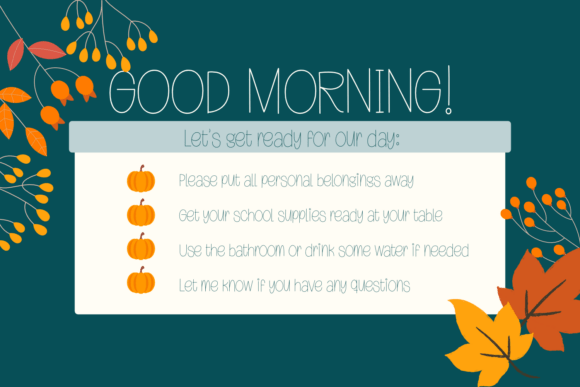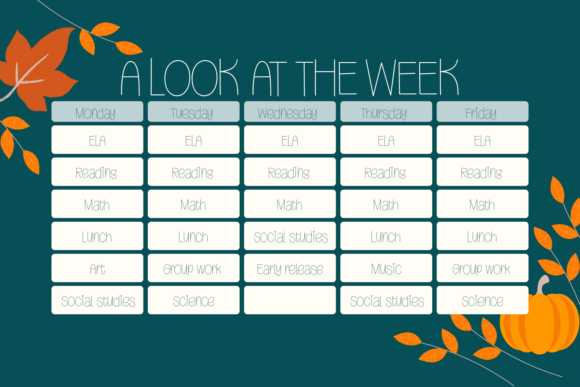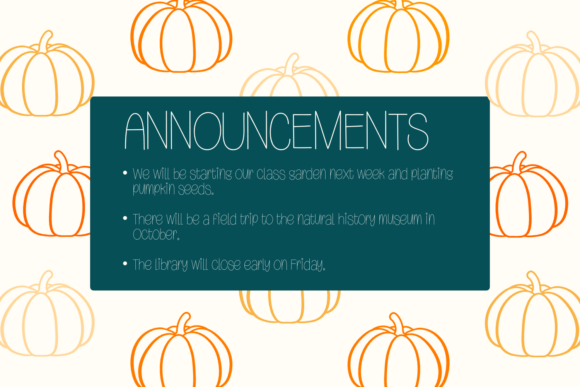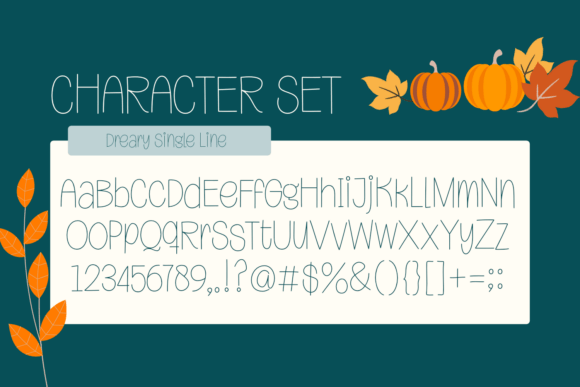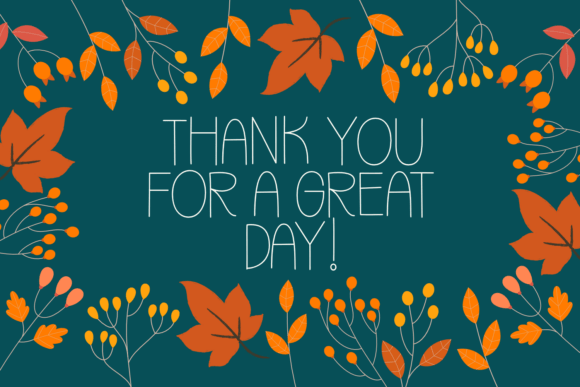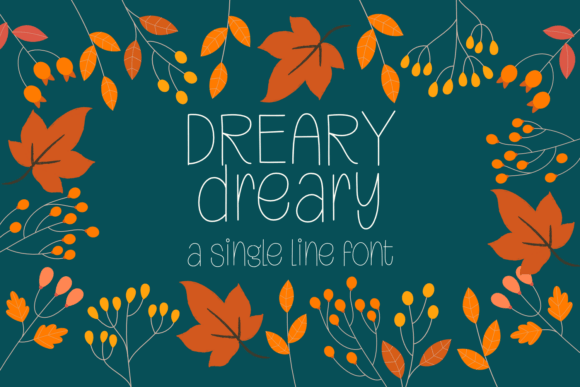
Dreary Single Line: The Ultimate Font for Fun and Whimsical Designs
Are you tired of using the same old fonts in your designs? Look no further than Dreary Single Line, a font that brings a unique blend of fun, simplicity, creativity, and playfulness to your projects. This meticulously crafted font is designed to deliver a funny and whimsical aesthetic, making it perfect for a wide range of applications.
The Characteristics of Dreary Single Line
Dreary Single Line is a single-line font that features a distinctive and quirky style. Its simplicity and elegance make it an excellent choice for designers who want to add a touch of whimsy to their work. The font’s lines are smooth and flowing, with a consistent thickness that gives it a cohesive look. The characters are carefully designed to be easily readable, making it suitable for use in a variety of contexts, from digital media to print materials.
The Benefits of Using Dreary Single Line
So, why choose Dreary Single Line for your designs? Here are just a few benefits of using this versatile font:
- Fun and playful aesthetic: Dreary Single Line is designed to bring a smile to your audience’s face. Its quirky style is perfect for brands that want to showcase their playful side.
- Highly versatile: This font can be used in a wide range of applications, from social media graphics to posters, flyers, and even merchandise.
- Easily readable: Despite its playful style, Dreary Single Line is highly legible, making it suitable for use in body text as well as headlines.
- Customizable: The font’s simplicity makes it easy to modify and customize to suit your brand’s style.
Applications for Dreary Single Line
Dreary Single Line is a versatile font that can be used in a variety of contexts. Here are some ideas to get you started:
- Social media graphics: Add a touch of whimsy to your social media posts with Dreary Single Line. It’s perfect for creating eye-catching headlines and captions.
- Posters and flyers: Use Dreary Single Line to create bold and attention-grabbing posters and flyers for events, promotions, and products.
- Merchandise: The font’s playful style makes it perfect for use on merchandise such as t-shirts, mugs, and tote bags.
- Branding and packaging: Dreary Single Line can be used to create unique and memorable branding and packaging for products and services.
Tips for Using Dreary Single Line
Here are some tips for getting the most out of Dreary Single Line:
- Experiment with colors: The font’s simplicity makes it easy to pair with a wide range of colors. Experiment with different color combinations to find the perfect look for your brand.
- Use it sparingly: While Dreary Single Line is a fun and playful font, it can be overwhelming if used excessively. Use it sparingly to create visual interest and emphasis.
- Pair it with other fonts: Dreary Single Line can be paired with other fonts to create a unique and visually appealing combination. Experiment with different font pairings to find the perfect look for your design.
Dreary Single Line is a unique and versatile font that brings a touch of fun and whimsy to any design. Its simplicity, elegance, and playfulness make it perfect for a wide range of applications, from social media graphics to posters, flyers, and merchandise. With its highly legible characters and customizable design, Dreary Single Line is an excellent choice for designers and crafters looking to add a little excitement to their work.